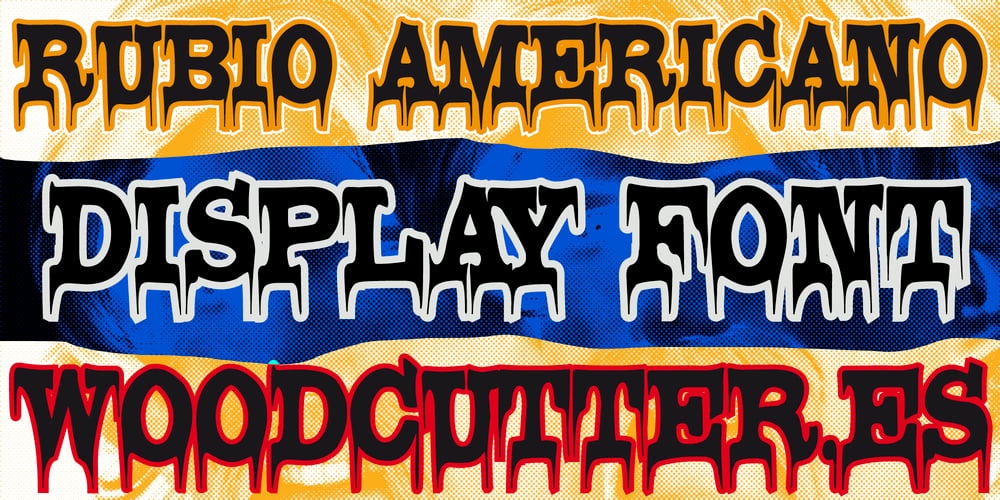
Rubio Americano Font Family was designed by Jordi Manero and published by Woodcutter. Rubio Americano contains 1 styles and family package options. “Rubio Americano” is an uppercase font that blends a classic style with a fantastic touch. Its letters have a sharp appearance and are adorned with a dripping effect that seems to melt, creating a dynamic contrast between tradition and modernity. The lines of this typeface appear hand-drawn, adding an artisanal and unique feel. Ideal for projects that aim to stand out with bold and creative design, “Rubio Americano” is perfect for posters, book covers, or any piece that requires a strong and memorable visual impact.